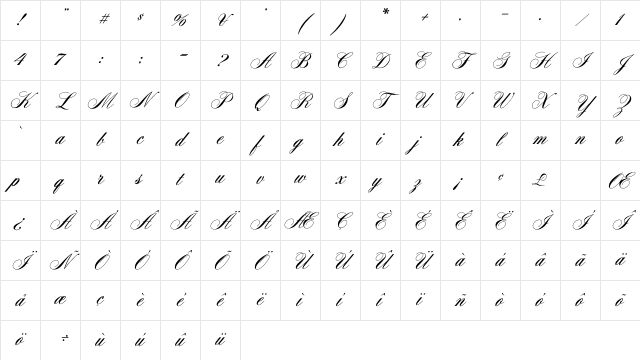
AeroliteCPone Medium Free Font
AeroliteCPone Medium
Design Context for AeroliteCPone
AeroliteCPone is a composed and adaptable typeface that performs quietly and consistently across a wide range of design contexts.
Pro Tip: Use AeroliteCPone in both headline and body roles to test its range before committing to a single application.